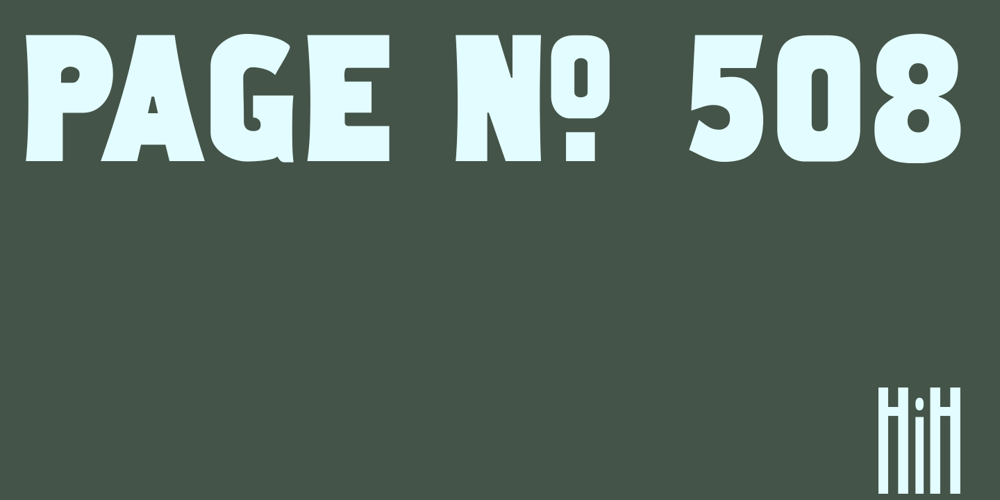
Page No. 508
Page No. 508 Font Family was designed by William Hamilton Page and published by HiH. Page No. 508 contains 1 styles and family package options. Page No. 508 was designed by William Hamilton Page in 1887 as one of a series of designs for die-cut wood types for the firm of Page & Setchell of Norwich, Connecticut. Page & Setchell was the successor to The William H. Page Wood Type Company and was sold to the Hamilton Manufacturing Company of Two Rivers, Wisconsin in 1891. 508 is a heavy all-caps font designed for headline work. It has a strong presence that reverses out well (light-colored type on a dark background). Great for retro style posters.